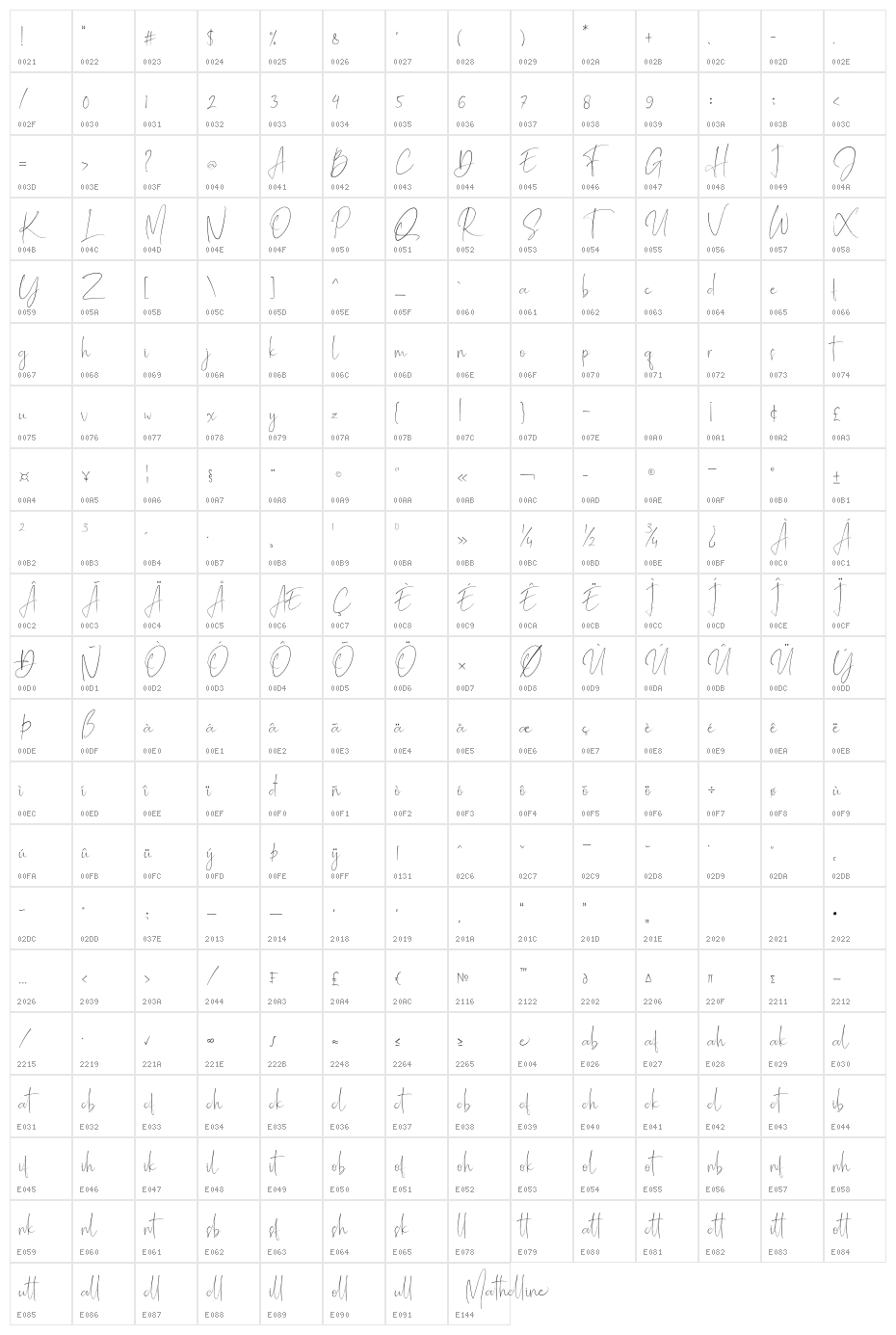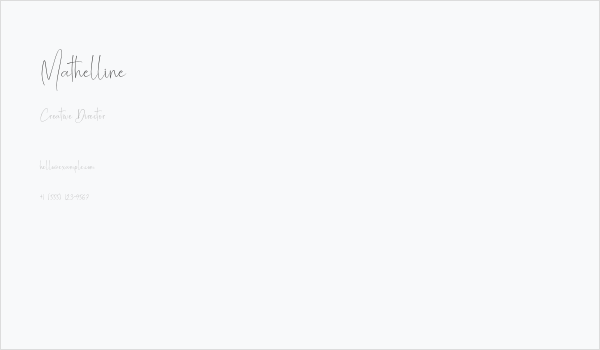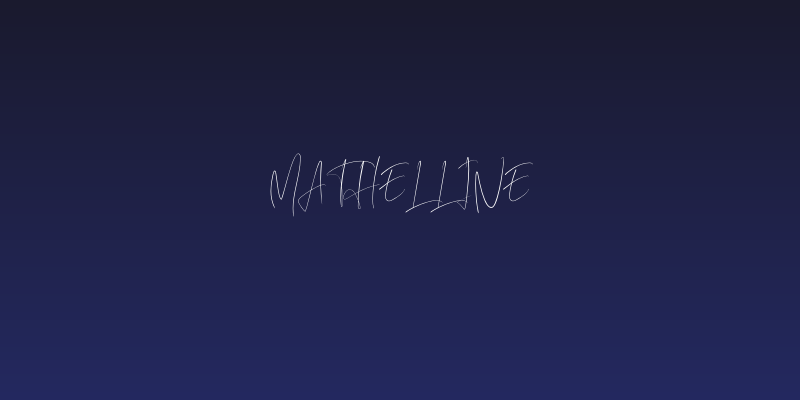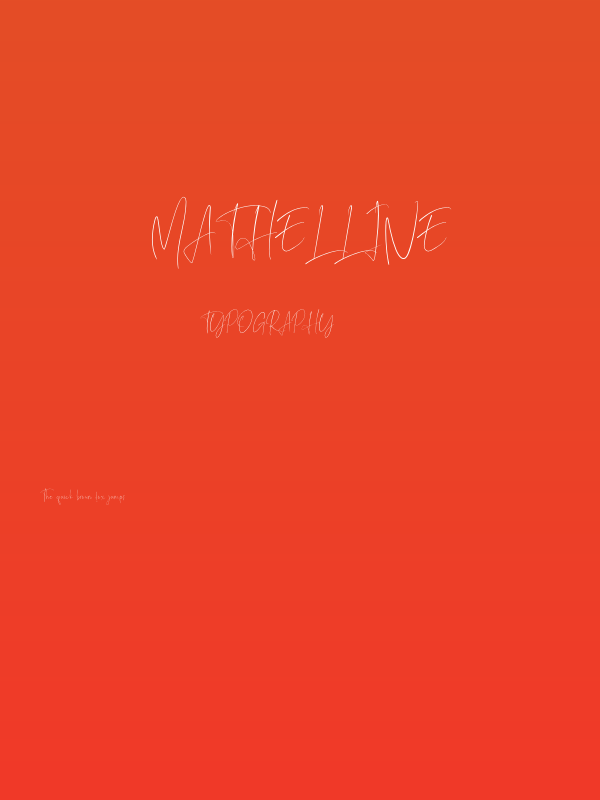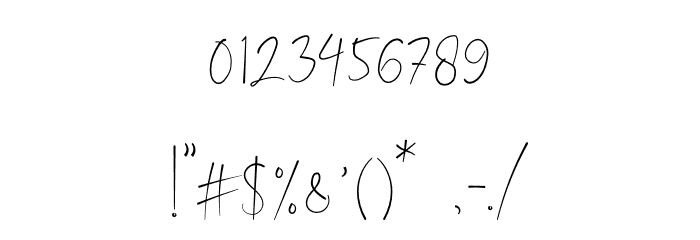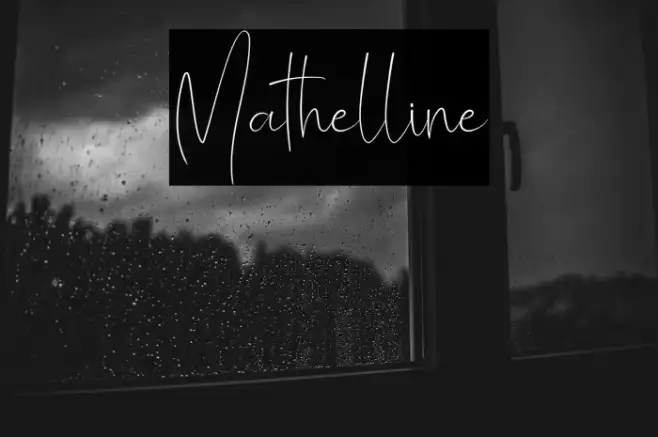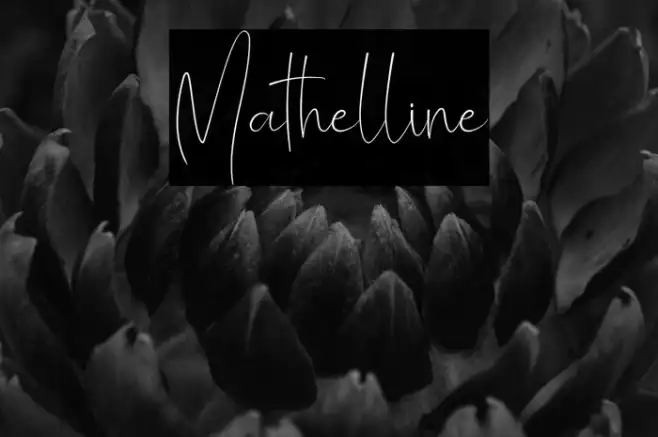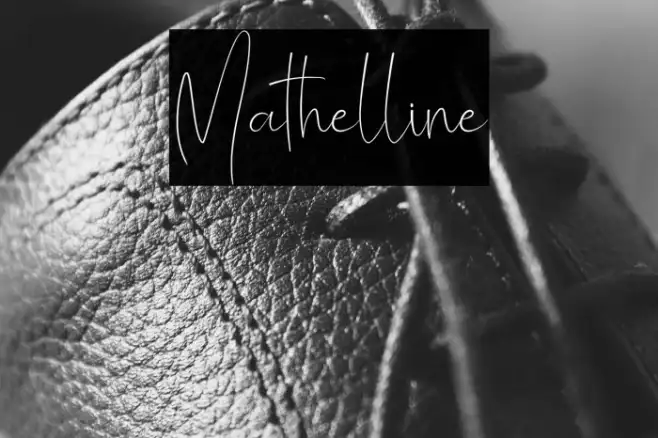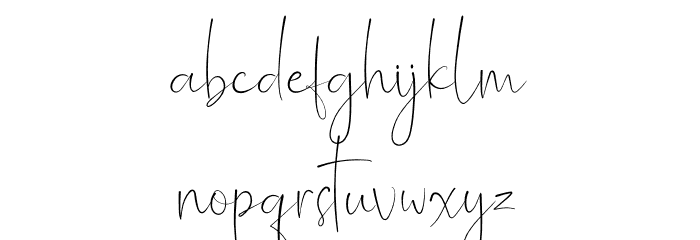
Mathelline Font
Mathelline Description
This font exudes a whimsical and artistic flair, characterized by its flowing, cursive style that mimics the fluidity of handwriting. The letters are elegantly elongated with a slight slant, giving them a dynamic and lively appearance. The strokes vary in thickness, adding a touch of sophistication and a handcrafted feel. This font is perfect for projects that require a personal touch, such as invitations, greeting cards, or branding materials that aim to convey creativity and elegance. The numbers and special characters maintain the same artistic style, ensuring consistency across all text elements.
| Proposed Projects | Ideal for wedding invitations, artistic branding, personal stationery, and creative logos. |